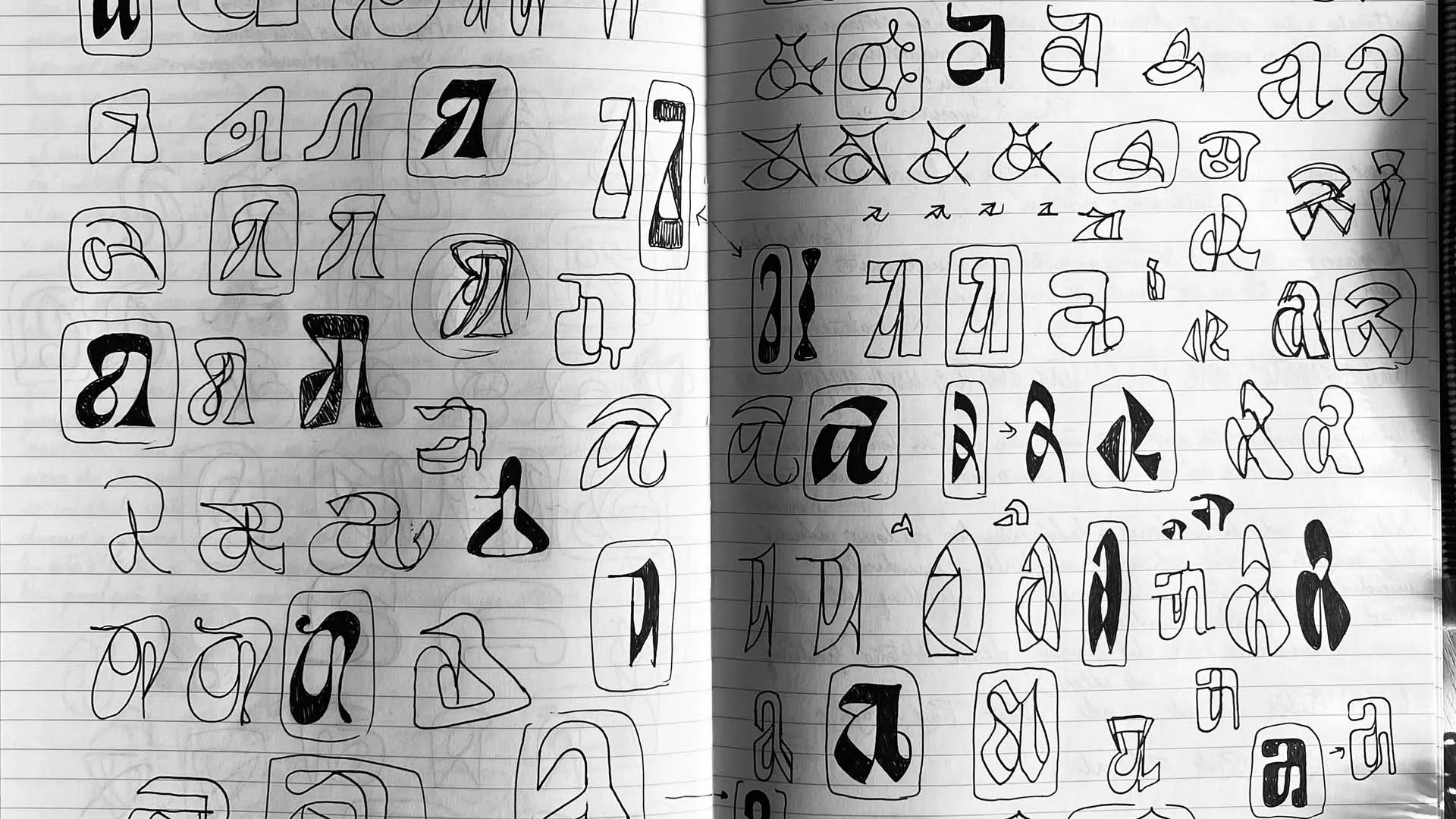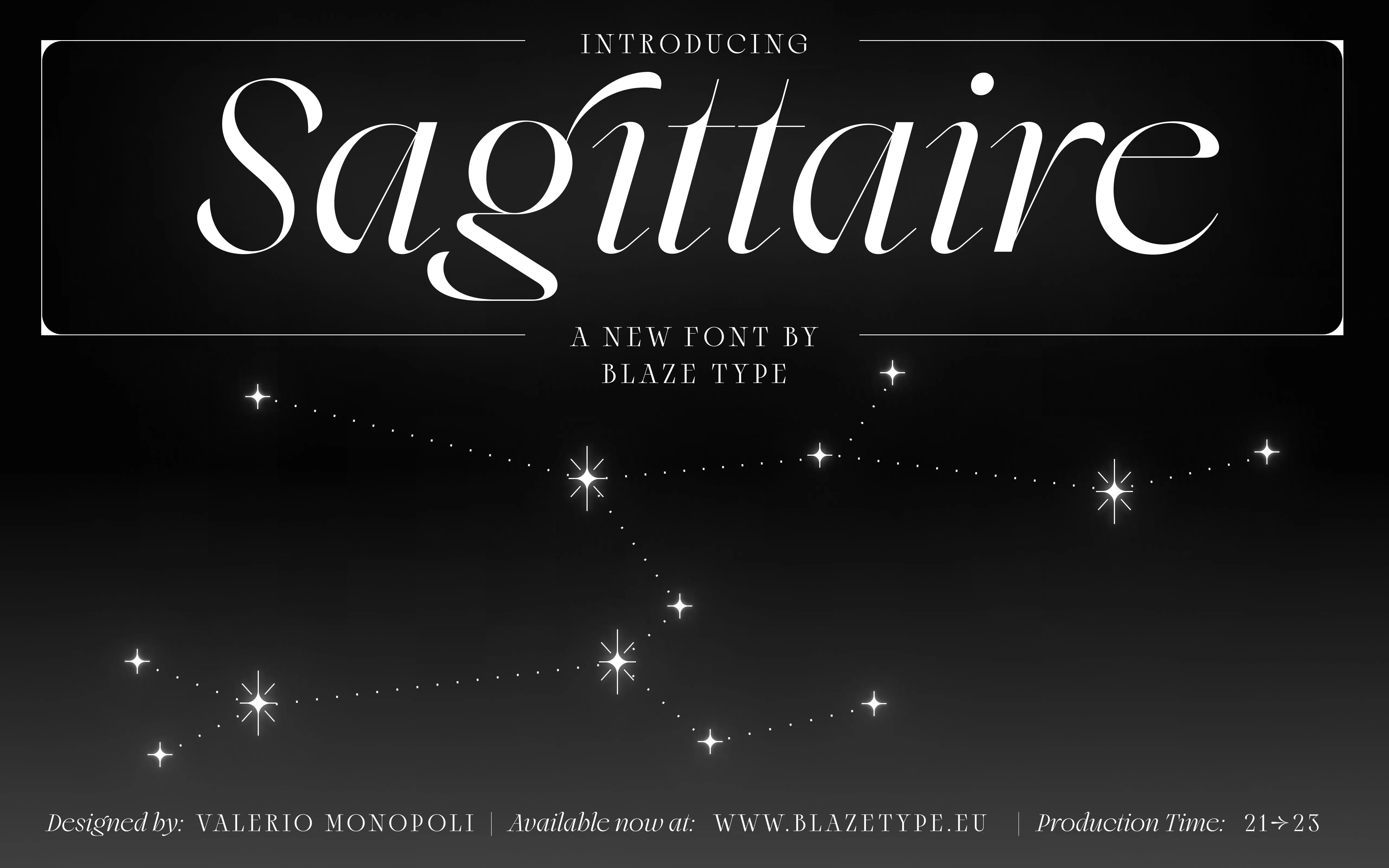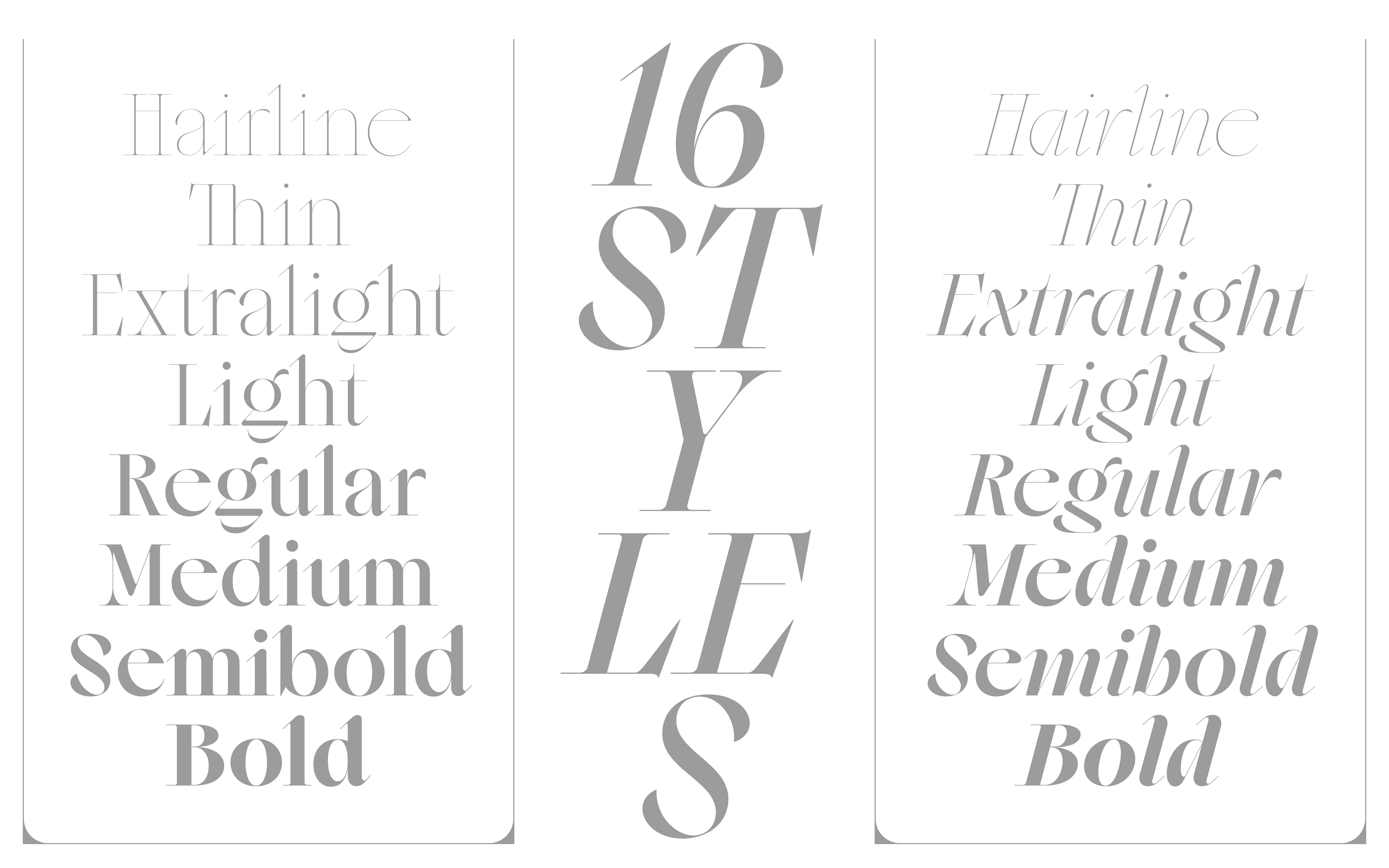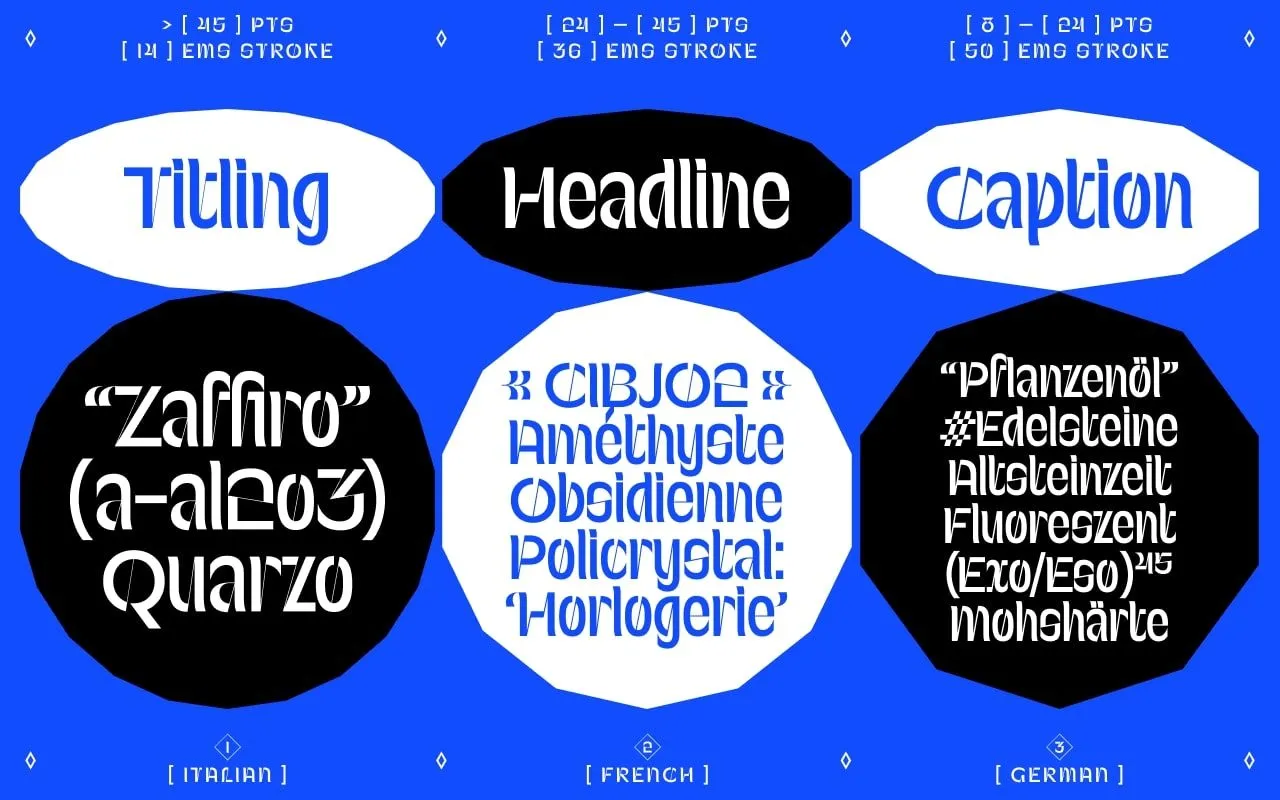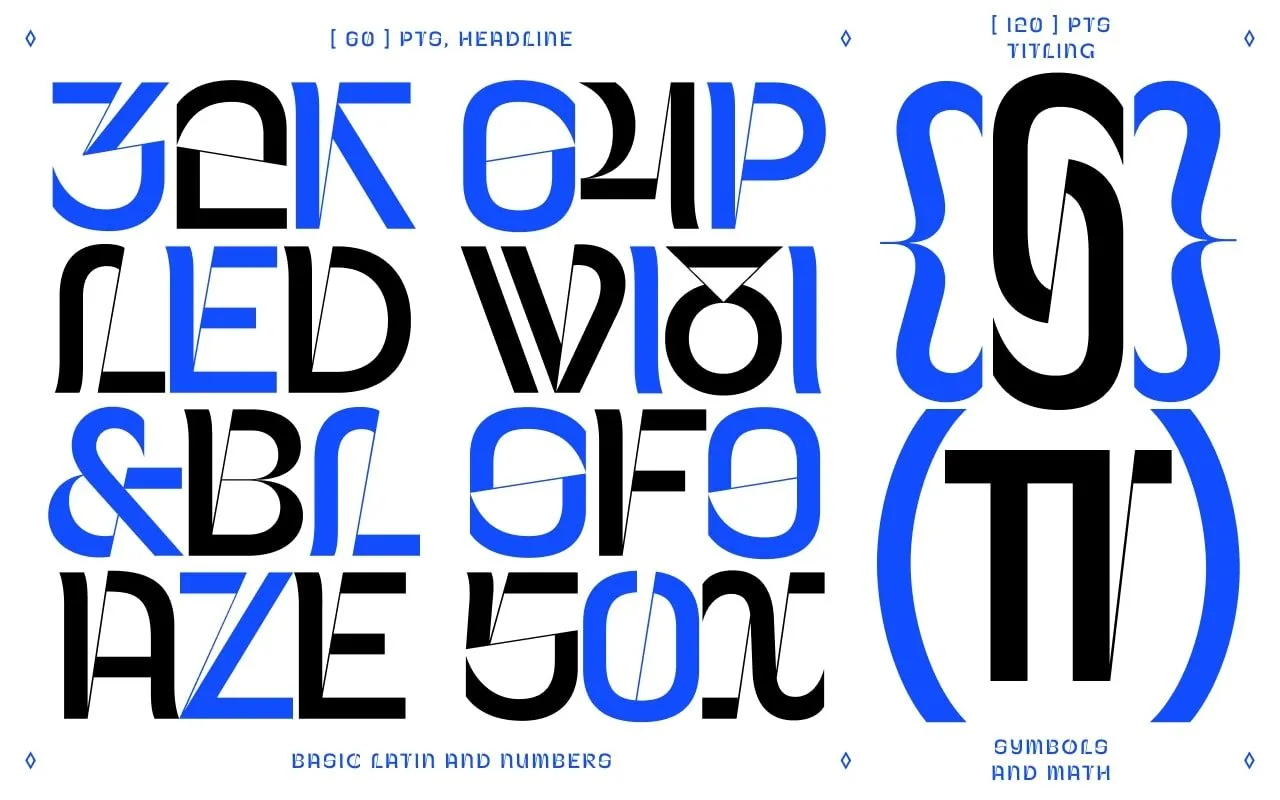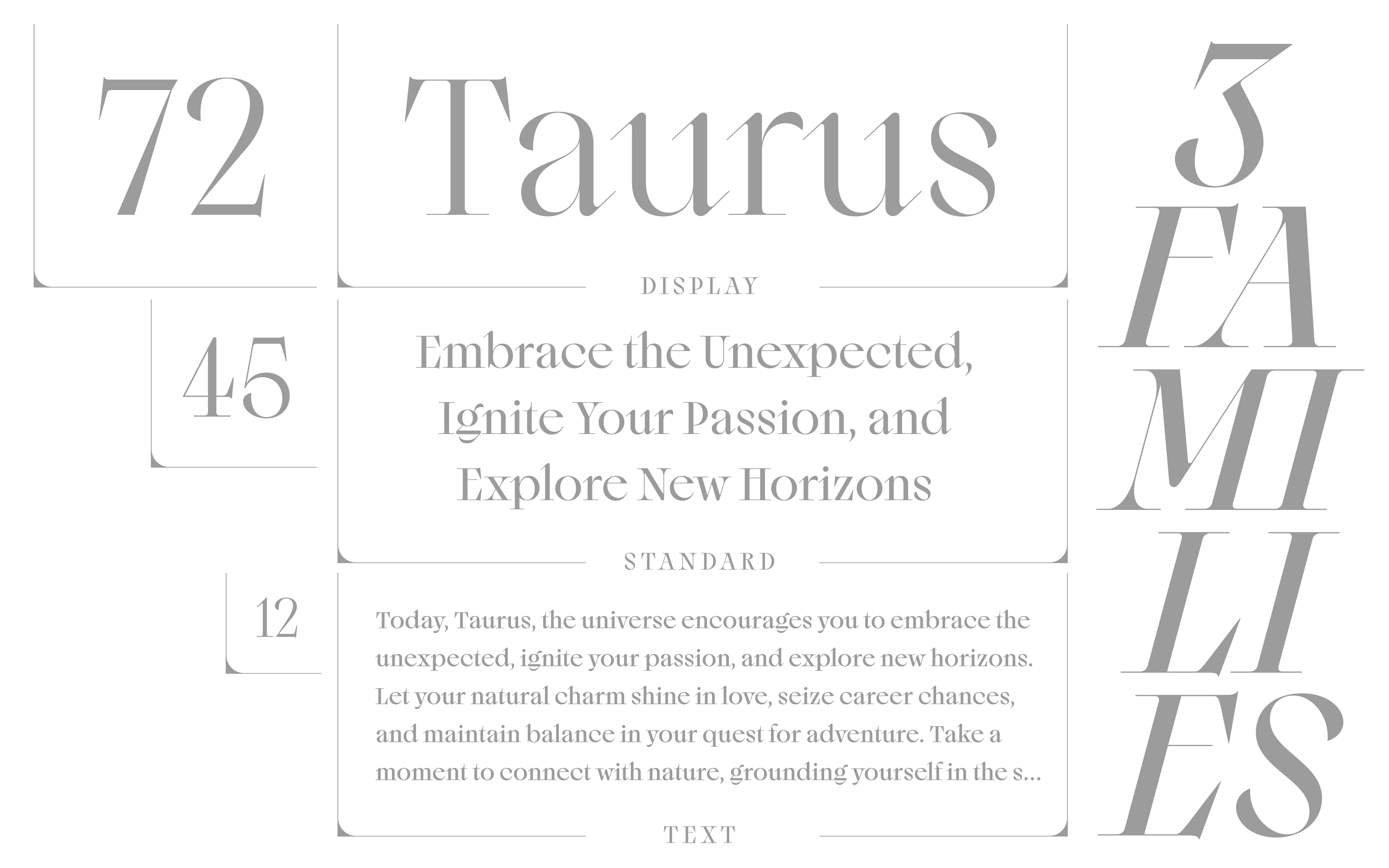
Valerio Monopoli
Chatting with Type Designer Valerio Monopoli
You started out as a graphic designer specializing in branding and video-mapping. How did you progress towards type design? Did this initial career give you a particular vision of typography and type design, and its uses?
When I began designing, I was particularly drawn to "generative" branding projects—those that involved creating systems or tools capable of producing multiple variations of a visual archetype, often built around a simple constructive grammar. In many ways, typeface design is a similar process: it’s not about crafting a single "look" but rather developing a cohesive dictionary of forms and functionalities that maintain a shared meaning despite their diverse expressions. Even before I learned how to craft a clean typeface, I was already experimenting with typography and lettering in my branding projects, but it was only later, as I specialized in editorial design, that I realized just how powerful a custom typeface could be in this context. It became the most accessible way for me to develop tools to address complex identity challenges without the need for extensive coding, leading me to fully commit to exploring the craft. Looking back, I can see a clear and natural continuity between these two creative processes.
You're Italian, but you also studied in Spain, then collaborated with numerous foundries across Europe. Do you still feel that there's a cultural particularity, in terms of type design, specific to each country, or are trends shared across the globe?
A designer's cultural identity is deeply intertwined with their style, and, in my view, the most compelling work often emerges from individuals who embody a blend of diverse influences. While social networks and creative platforms have, to some extent, homogenized distinct national styles, a keen eye can still often discern where—or at least when—a design originated. Rather than being shaped primarily by nationalities, though, I believe our strongest inspiration come from cities and the vibrant communities that inhabit them. A single group of designers and educators with bold, distinctive perspectives is sufficient to establish a "school" whose philosophy and impact transcends national connotations.
For my part, I’ve always tried to remain open to new experiences and viewpoints, actively pursuing a nomadic career in type design, which has put me in contact with several environments and realities. It’s an approach I strongly recommend to anyone aiming to expand their creative horizons, especially for those seeking to infuse a human element into the deeply personal craft of typography, as each new collaboration offers an opportunity to forge a fresh dialogue, enriching both the process and the outcome.
We often overlook that the true source of inspiration lies in people themselves, not solely in the result of their creativity—the “projects” they produce.
Sapfír (Sapphire in Ukrainian), is a mix between a contemporary approach to a blackletter font design and the cutout shiny aspect of a gem.
You first published Sapfir with Blaze Type. It's a hybrid typeface, blending blackletter and sans influences. The typeface page even cites Excoffon's Antique Olive as a source of inspiration. How did you come up with this somewhat unnatural marriage?
One of the biggest challenges in creating unconventional display characters is finding a set of references that harmonize without ending up as a disjointed "Frankenstein." This often involves blending features that don’t traditionally belong to the same category—such as using the proportions of a typographic genre and the contrast style of another. In this instance, the "blackletter" label refers primarily to the cursive structure of the letters, while the contrast style and gestural terminals were inspired by bold humanist sans serifs, like Antique Olive, as you mentioned.
I used these references out of necessity, as there isn’t a more established terminology to describe such a combination. However, this project was one where historical sources played a marginal role, leaving room for entirely new constructions to emerge. One of my goals as a type designer is to create models that challenge existing classifications and demand new vocabulary for their description—terms that might one day define a new category of fonts. This process of coining new terminology was a regular practice among past type designers, and I think we shouldn’t hesitate to continue it in the modern era.
How did your first meeting with Matthieu from Blaze Type go?
Although Sapfir was my first release with Blazetype, my collaboration with Matthieu actually began in 2020 when we first discussed the possibility of releasing another font on his platform, named Sagittaire. Given the complexity of the latter, it wasn’t until two years later that it finally came to fruition. At the time, I was seeking new partners to publish fonts that hadn’t yet found a home, and I was captivated by Blazetype’s early typefaces and unique website, so I got in contact with Matthieu thanks to Leon Hugues, who had already collaborated with him.
From the very beginning, I sensed in Matthieu a shared sense of wonder and curiosity, which made our collaboration feel natural. Even before we officially released anything together, we had already bonded over chess matches and exciting conversations. After some years of on-and-off collaboration and meeting in person several times, we developed a strong mutual trust that paved the way for the ambitious projects we’re currently working on, which far surpass those initial releases in both scope and scale.
Like the mythological arrow-slinging centaur, said to never miss the target he’s aiming at, Sagittaire is a hybrid creature: halfway humanist and nuanced, halfway raw and undomesticated, it traces a bewildering figure characterised by a high-waisted body with a seemingly unnatural distribution of widths an volumes. At its extremities, feather-like terminals bloom from orthogonal stems, flowing gracefully into sharp arrowheads that pierce the reader’s eye in the lightest cuts, only to gradually soften up across the 3 styles (Display, Standard, Text) for a total of 48 weights.
Sagittaire is currently your most important and richest creation. Here again, the design is a hybrid, somewhere between humanistic and more contemporary and nuanced. Maybe I'm wrong, but one could get the impression of a W.A. Dwiggins typeface in its classic look and the importance given to details that are ultimately very contemporary... Is this a conscious influence for you? How did you approach the design of this typeface?
I hold great admiration for figures like Dwiggins, not least because of his extraordinary versatility across multiple creative disciplines—from bookmaking and illustration to typography—demonstrating how these fields communicate and influence one another. Sagittaire emerged from a similar disciplinary crossing, inspired by the work of another master illustrator, Aubrey Beardsley. It aimed to translate the delicate intricacy of Beardsley’s fine line drawings into typography, capturing both their elegance and rigor. The outcome was a hairline design that balanced at the intersection of the human and the artificial, merging organic fluidity with meticulously calculated forms. From this initial concept, the typeface family evolved, expanding its foundation to become a versatile font capable of adapting to a wide variety of contexts and applications.
The matching italics, built according to the same aesthetic principles, feature a brusque sliced ductus that adds diagonal stress to an already spirited texture. Through the combination of these two styles, Sagittaire’s bedazzling appearance is fully manifested: an outlandish carrier of mystical symbolism ready to take its place in the firmament of typography.
Did you already have the idea or desire to extend the family to optical bodies as varied as text and display when you began creating this typeface?
Once the Display family was completed, I tested it at smaller sizes and quickly realized that its dramatic contrast made the font impractical for editorial use. Given that it was a relatively minimal design with high inherent legibility, it felt natural to develop a thicker family to expand its usability in this context. That said, as of now, even the current "text" version remains primarily a display font. To address this, I’m actively working on an even more text-focused version designed specifically for the very small application, which will be published alongside a completely new stencil family.
Whatever the objective of your design is, you can rest assured, Sagittaire will always hit the spot.
You've made a kind of stylistic leap from Sapfir to Sagittaire. The mentalities are different, but do you now recognize yourself more in the creative twist of Sagittaire or the radical bias of Sapfir?
Although conceived around the same time, the intentions behind these two fonts were rather different. Sapfir was a provocative and exploratory work, created without a specific use in mind, which gave me the freedom to push creative boundaries with a narrower scope. In contrast, Sagittaire was designed to serve as the foundation for a versatile type system, requiring me to move beyond the initial concept and learn to adapt the original sketch to accommodate a full range of weights and optical sizes.
I see myself reflected in both approaches, albeit at different moments. On one hand, there’s the challenge of crafting complex, marketable systems; on the other, the enjoyment of presenting smaller, critical pieces of type design as a creative diversion between larger, more structured releases. Finding a balance between these two types of projects is challenging, and I often find myself prioritizing the latter. However, I think this dynamic helps me stay engaged and avoid feeling overwhelmed by the lengthy production phases required for type families like Sagittaire.
Sapfír is a chiselled chimaera designed by mixing the minimal yet unmistakable shapes of Antique Olive font from Roger Excoffon with the vibrant rhythmical patterns of blackletter. Much like the gemstone it's inspired from, its sliced construction produces a multifaceted texture through which the cutting lines often converge and collapse into ligatures.
Is there a particular glyph you enjoy drawing when creating typography?
I am a big fan of the lowercase letter "a"—so much so that I’ve filled dozens of sketchbooks solely with iterations of it. It’s a letter of remarkable adaptability, capable of taking on countless forms while remaining instantly recognizable. For me, it’s often the starting point when creating new fonts, as its design can inspire and inform the character and structure of the entire typeface.
Some lowercase a from Valerio Monopoli's sketchbooks.
Do you have any future projects with Blaze Type, or what kind of type family (slab, stencil, etc.) would you like to develop in the future?
I’m currently collaborating with Fred Wiltshire on the largest type family either of us have ever undertaken—and possibly the most extensive in Blazetype’s catalog. This ambitious project includes a vast collection of sans serif, slab, soft, and stencil styles, so large that it will require multiple releases to bring to market. The first installment is set to launch in early 2025, with monthly updates planned throughout the following year.
In addition, I’m finalizing a pixel script font named Proximity, originally designed as a custom project for an eponymous company run by friends here in Barcelona. After receiving overwhelmingly positive feedback following its initial launch, we decided to expand it and make it accessible to a wider audience. All in all, it’s shaping up to be a busy and exciting year ahead!
What typefaces from the Blaze Type catalog (which you didn't design) do you secretly admire, and why?
One recent standout for me was Balete by Jad Maza—a truly remarkable design with a unique character and vibrant texture that’s impossible to ignore. Another jaw-dropping moment came long before with Swirl by Đuc X Cao. Its striking outline display style is impressive on its own, but even more so when you rerealize it’s just one part of a gorgeous text family he created.
To be honest, I believe everyone involved in this foundry possesses incredible talent. Being part of such a gifted roster is something I’m truly proud of, and I look forward to continuing to contribute my best work to the community in the future.